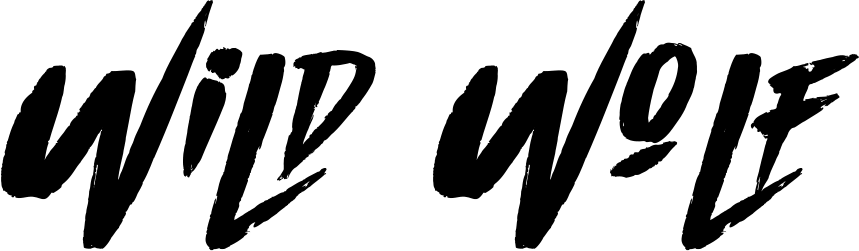
Wild Wolf Font
Wild Wolf font is one of the scary and horror font styles you have ever encountered. Sharp and brushed lines give you the good news of presenting horrifying Halloween flyers and vampire movie posters to your audience in a very professional way.
One of the notable negative features of this death metal font is the lack of lowercase letters, but you can present the best design of your life in the field of poster design with other characters.